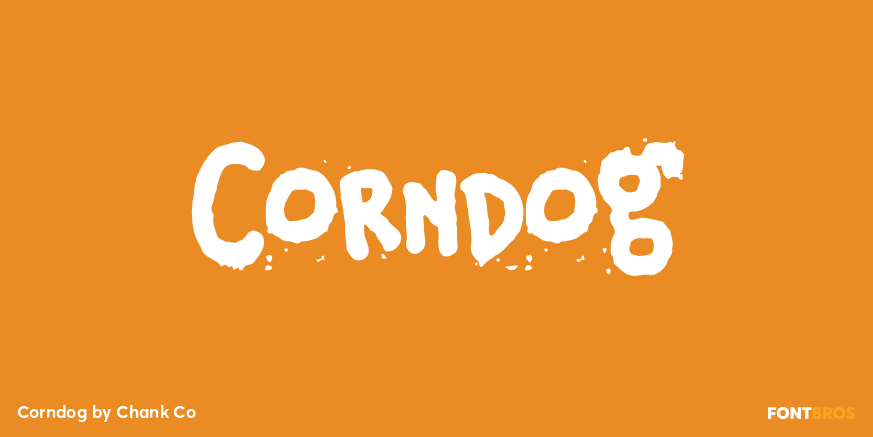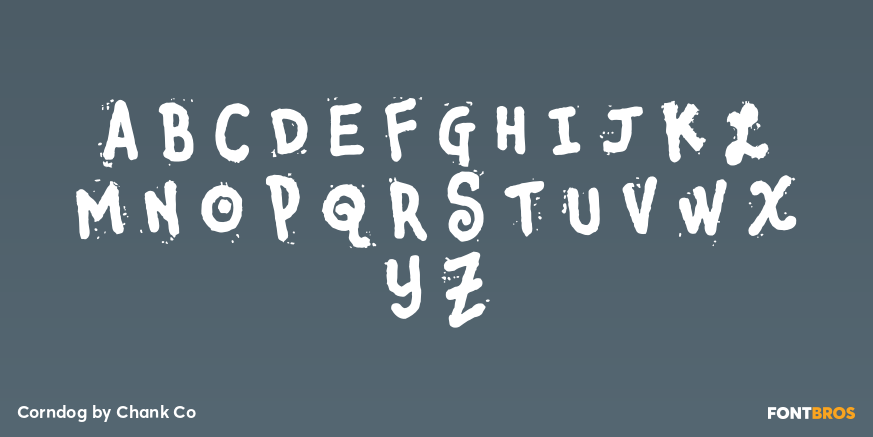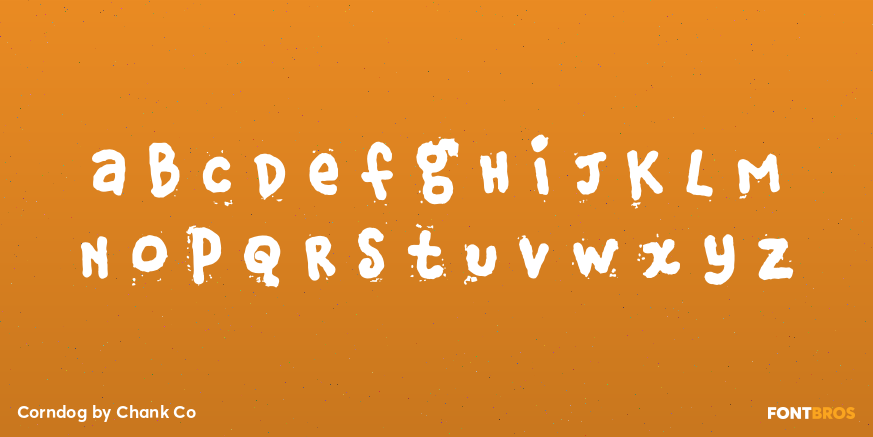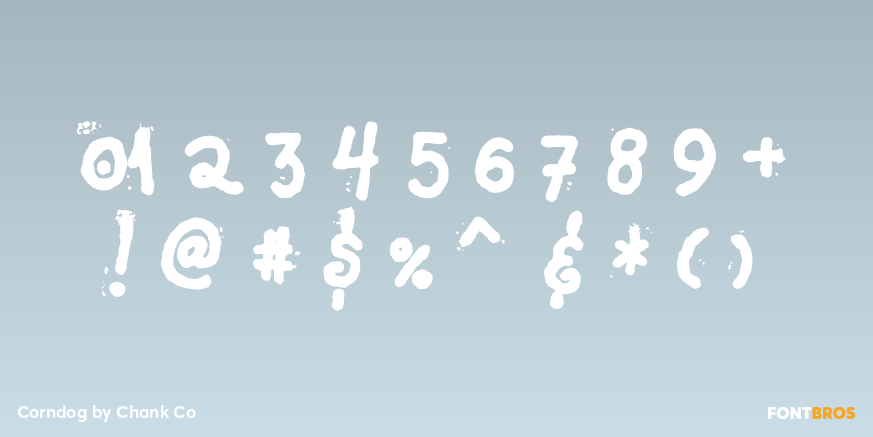
Corndog
Font Family by Chank Co
Corndog is a super chunky handwriting font with teeth. While it kinda looks ike it was drawn with a brick, the original art for this font was actually drawn very very tiny with an extrafine rollerball pen. Then it was enlarged on a crappy copier, which accounts for the little bits of flotsam and jetsam which adorn this alphabet. It's chunky, tasty, and oh so fun. "The kids love it!" says Chank.